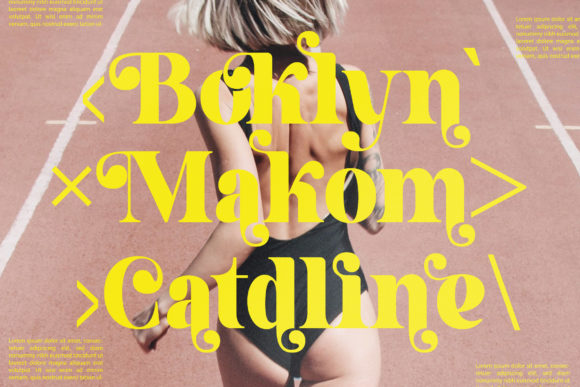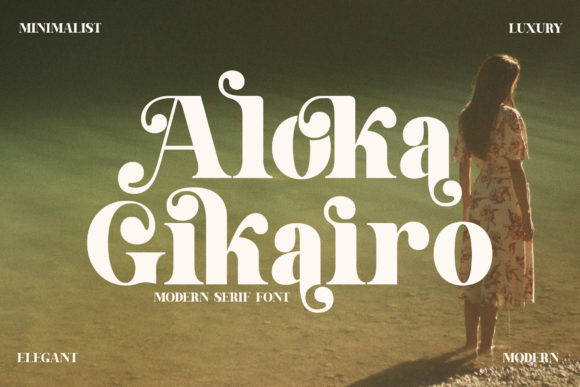
Aloka Gikairo Font
db-ku.com - Script & Handwritten -- Aloka Gikairo is a stylish and serif script font. It is PUA encoded which means you can access all of the amazing glyphs and ligatures with ease!